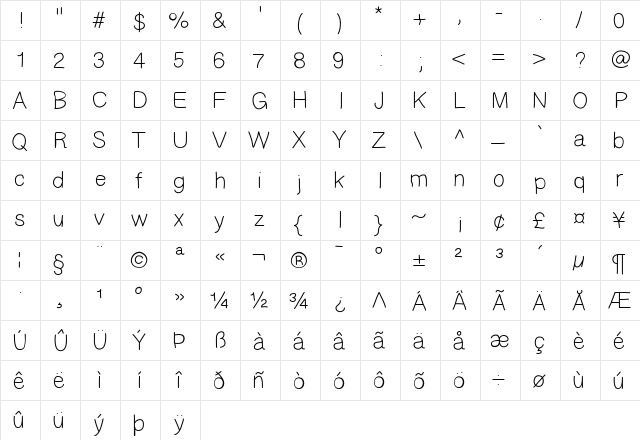
MoreLetters Medium Free Font
MoreLetters Medium
Design Context for MoreLetters
MoreLetters is a composed and adaptable typeface that performs quietly and consistently across a wide range of design contexts.
Pro Tip: Use MoreLetters in both headline and body roles to test its range before committing to a single application.